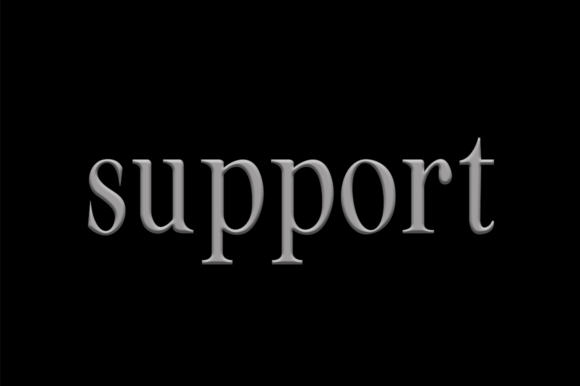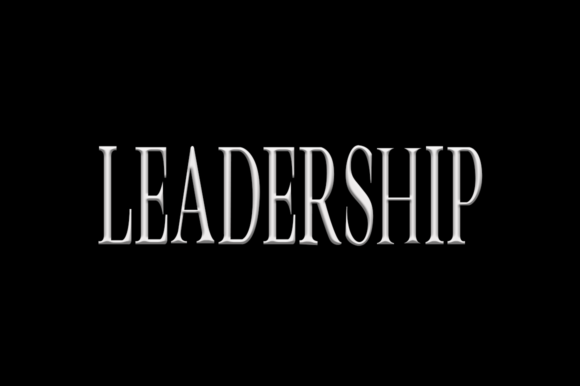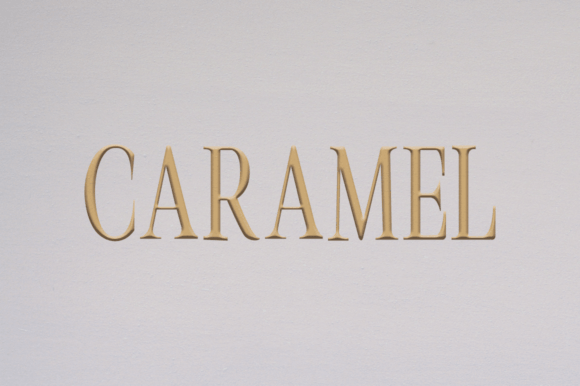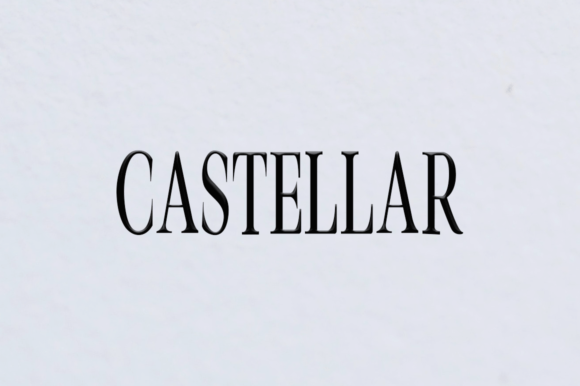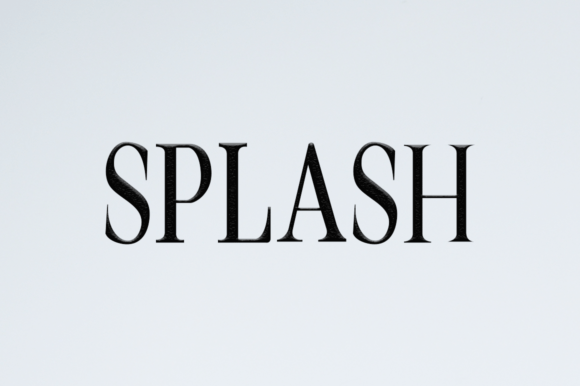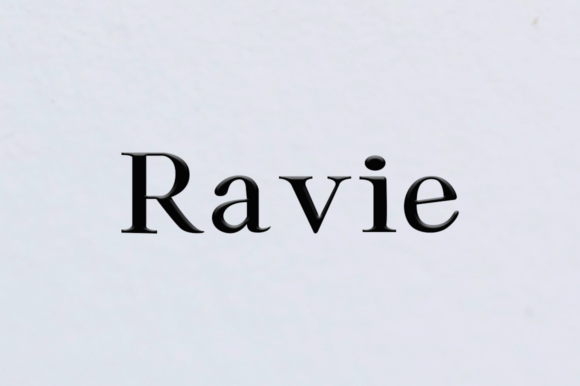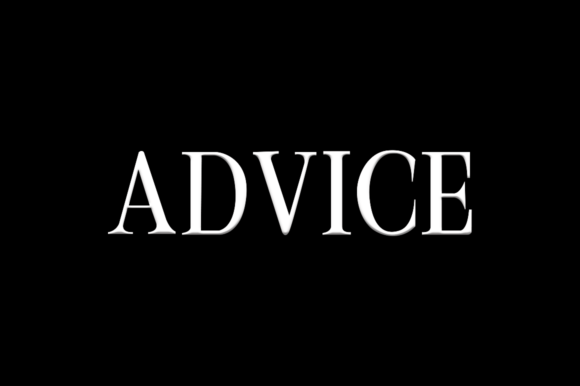
Introducing Advice Font: Elevate Your Designs with Elegance and Sophistication
In the world of typography, fonts play a crucial role in conveying the tone and aesthetic of a design. For designers and crafters seeking to add a touch of elegance and sophistication to their work, the Advice Font is an exceptional choice. This stylish serif font is characterized by its smooth curves, making it perfect for fashion branding, editorial design, and a wide range of creative projects.
What Makes Advice Font Stand Out?
Advice Font is not just another serif font; it’s a carefully crafted typeface designed to bring a sense of luxury and refinement to your designs. Here are some key features that set it apart:
• Smooth Curves: The font’s smooth, flowing curves give it a unique and sophisticated look, making it ideal for designs that require a touch of elegance.
• PUA Encoding: Advice Font is PUA (Private Use Area) encoded, which means you can easily access all the glyphs and swashes, giving you greater flexibility and creative control.
• Fashion and Editorial Friendly: Its classic yet modern aesthetic makes it perfect for fashion branding, editorial design, and any project that demands a high level of sophistication.
Endless Design Possibilities with Advice Font
The versatility of Advice Font is one of its most compelling features. Whether you’re working on a fashion magazine, a luxury brand’s marketing materials, or a personal crafting project, this font can help you achieve your design goals. Here are some ways you can use Advice Font to elevate your designs:
• Fashion Branding: Use Advice Font to create stunning logos, business cards, and packaging for fashion brands. Its elegant look will help convey a sense of luxury and exclusivity.
• Editorial Design: Add a touch of sophistication to your editorial projects, such as magazines, newspapers, and blogs, with Advice Font’s classic yet modern aesthetic.
• Crafting and DIY Projects: For crafters and DIY enthusiasts, Advice Font can be used to create beautiful and unique project titles, labels, and descriptions that stand out.
Tips for Getting the Most Out of Advice Font
To truly leverage the potential of Advice Font, consider the following tips:
• Experiment with Swashes: Take advantage of the font’s PUA encoding to explore the various swashes and glyphs available. This can add a unique touch to your designs.
• Combine with Other Fonts: Don’t be afraid to pair Advice Font with other fonts to create interesting contrasts and hierarchies in your designs.
• Play with Sizes and Colors: Experiment with different sizes and colors to make your text stand out or blend seamlessly into your design.
Advice Font is a powerful tool for designers and crafters looking to add a touch of elegance and sophistication to their work. With its smooth curves, PUA encoding, and versatile design, it’s perfect for a wide range of projects, from fashion branding to editorial design and crafting. By incorporating Advice Font into your design toolkit, you’ll unlock endless possibilities for creating stunning and memorable designs.